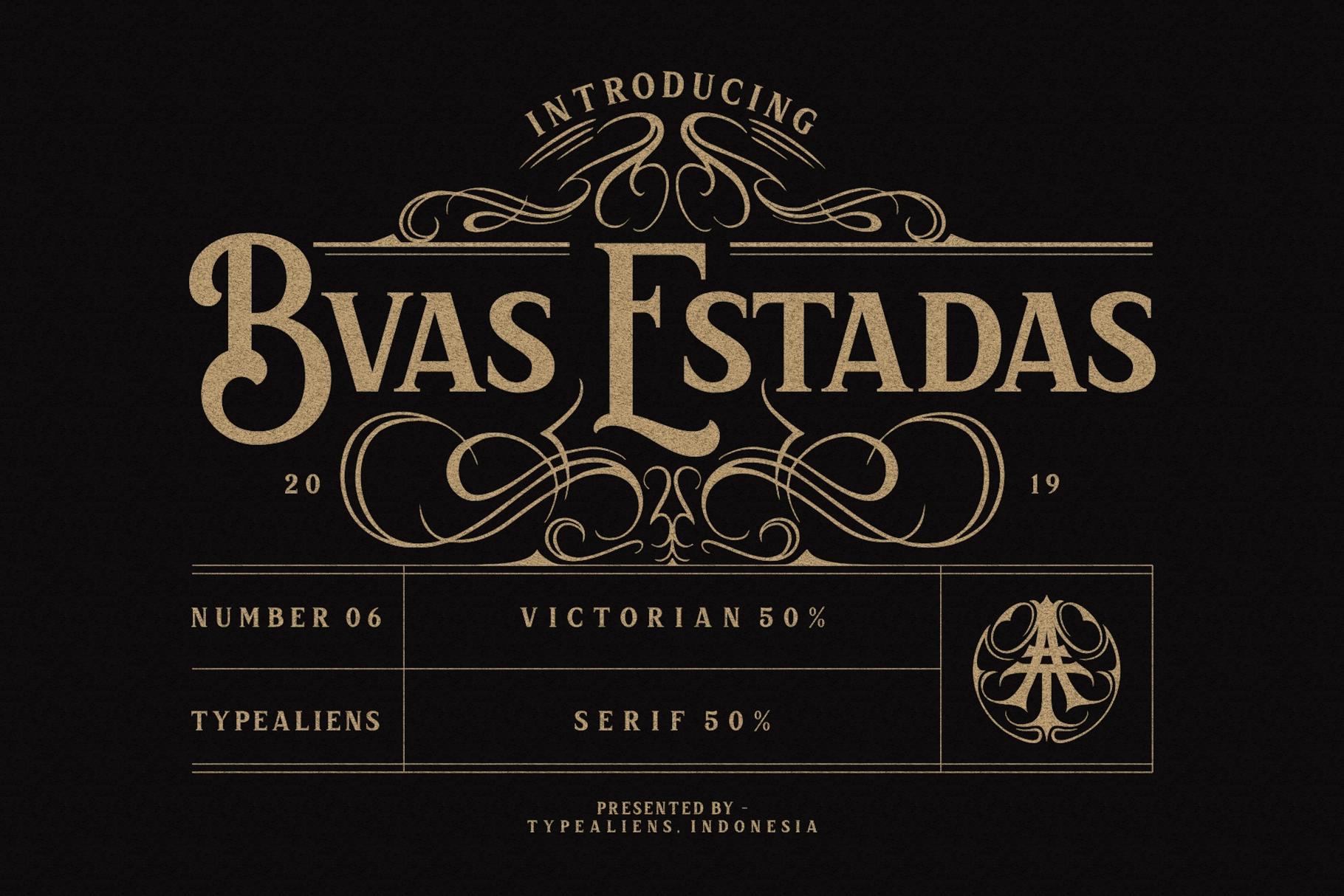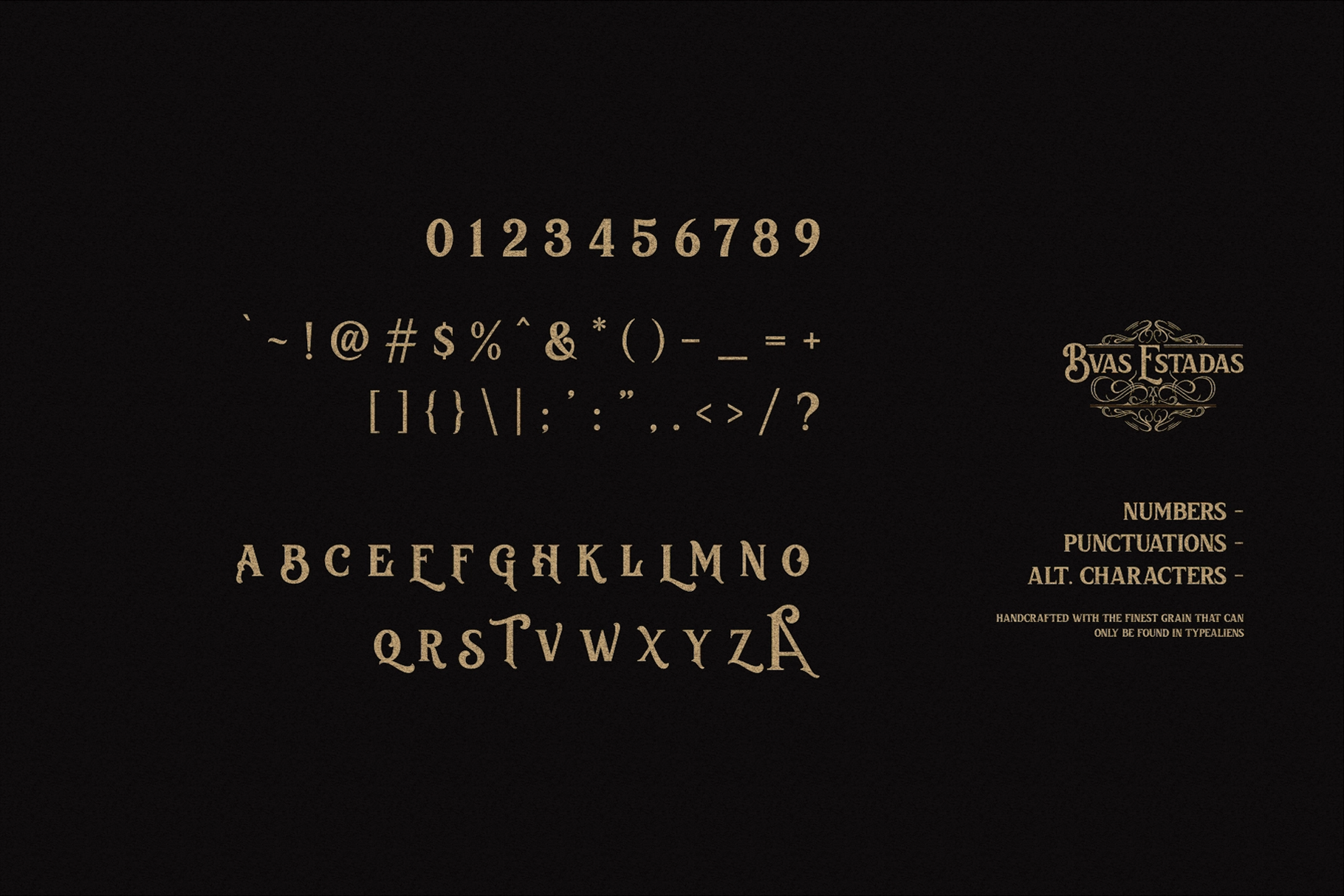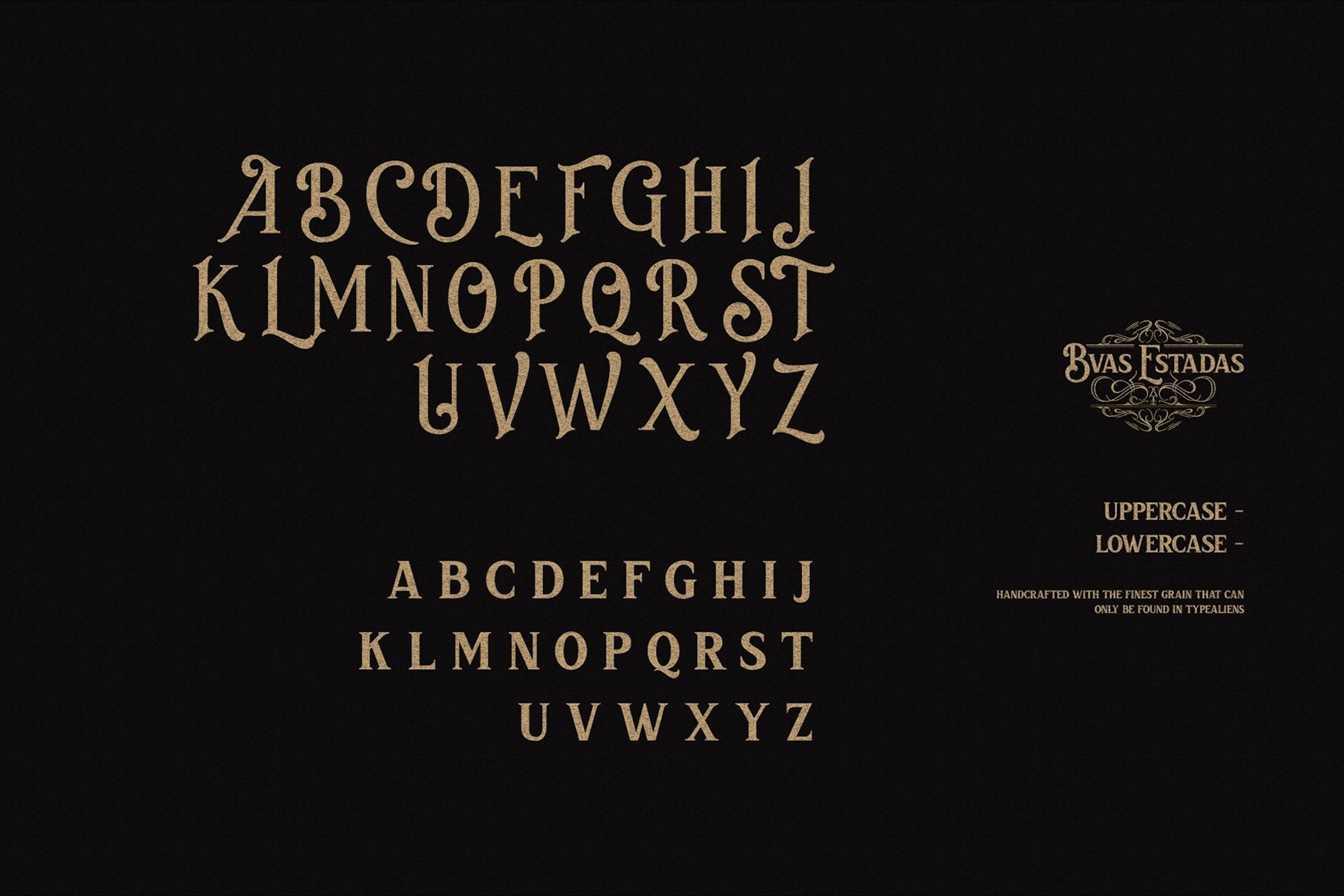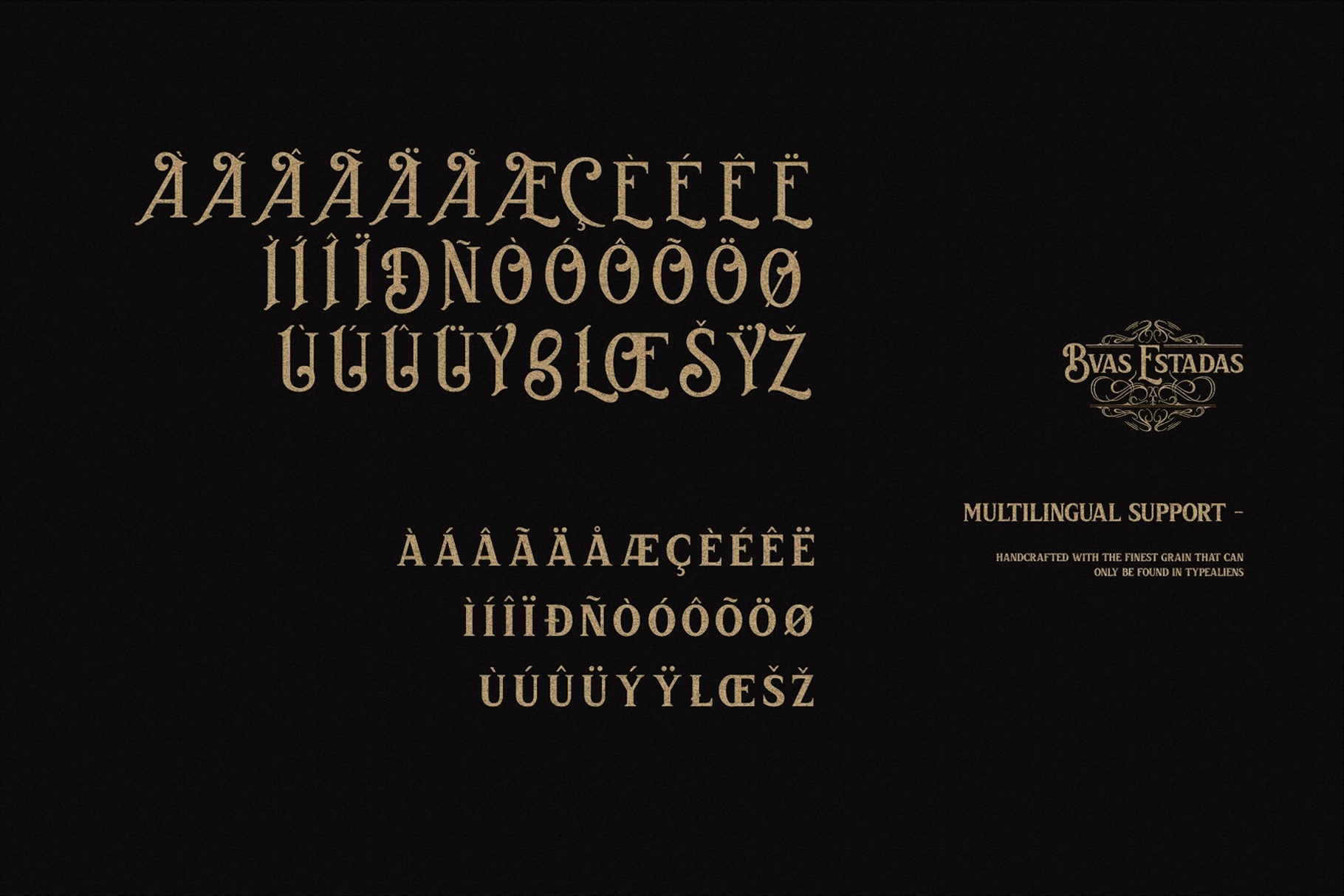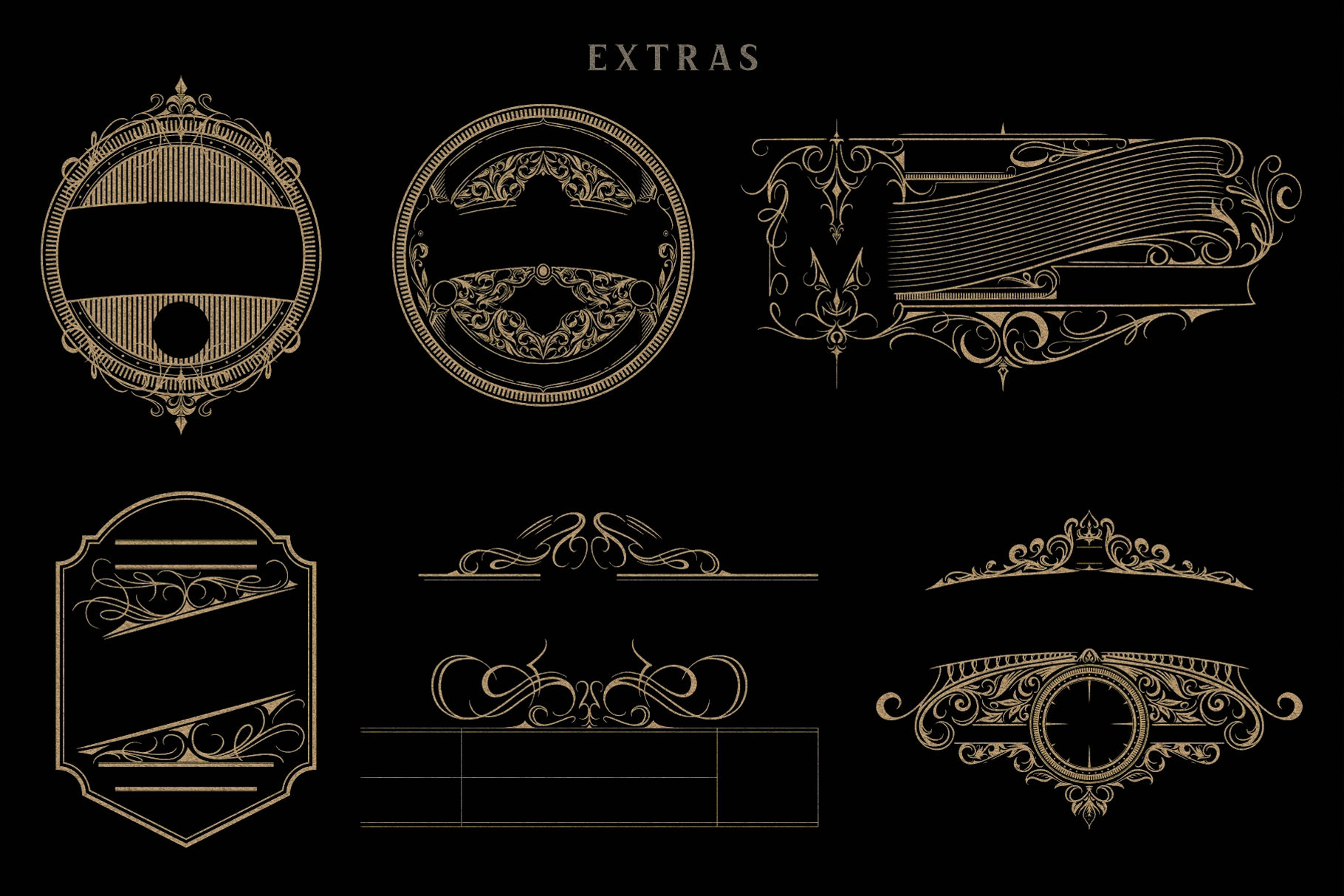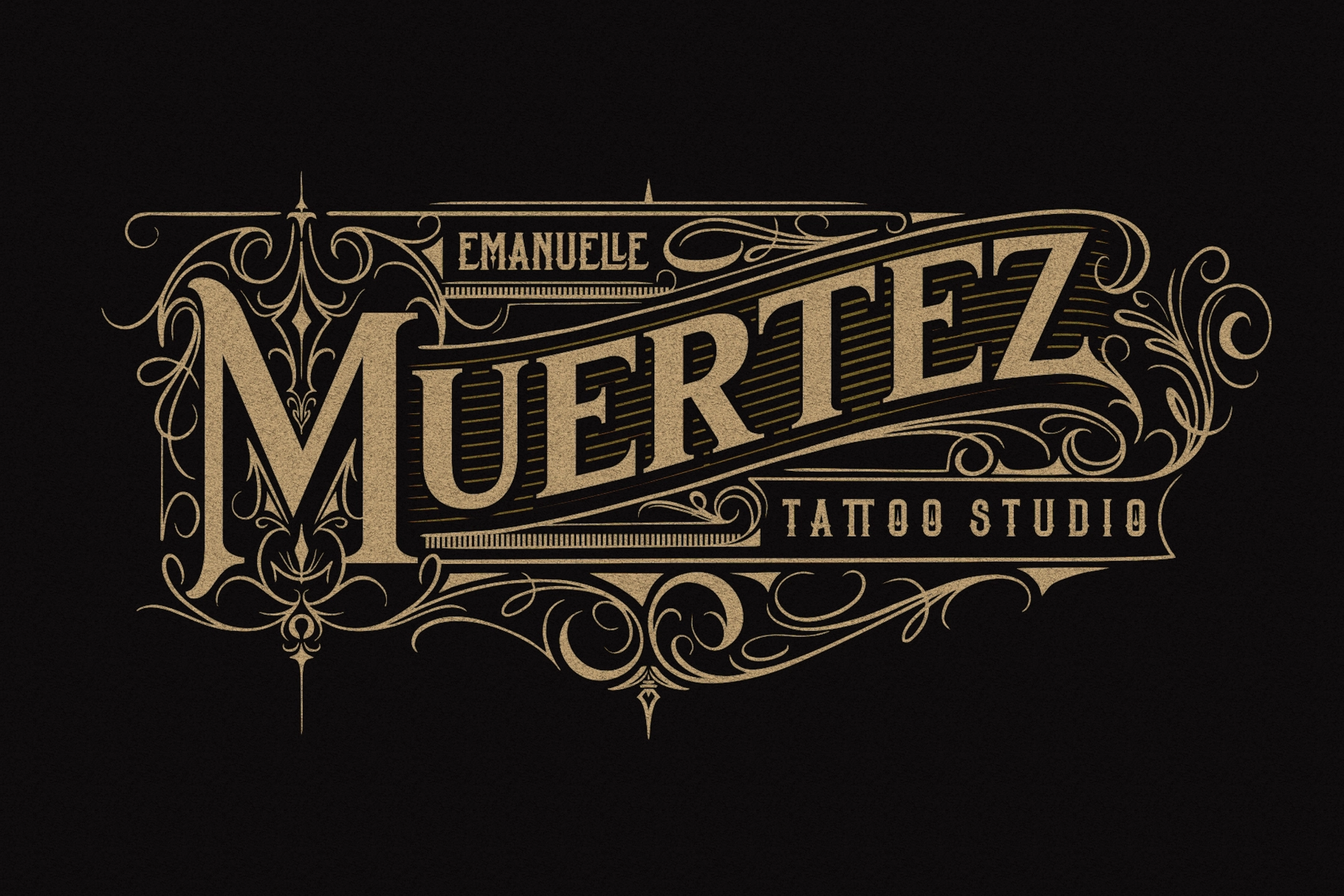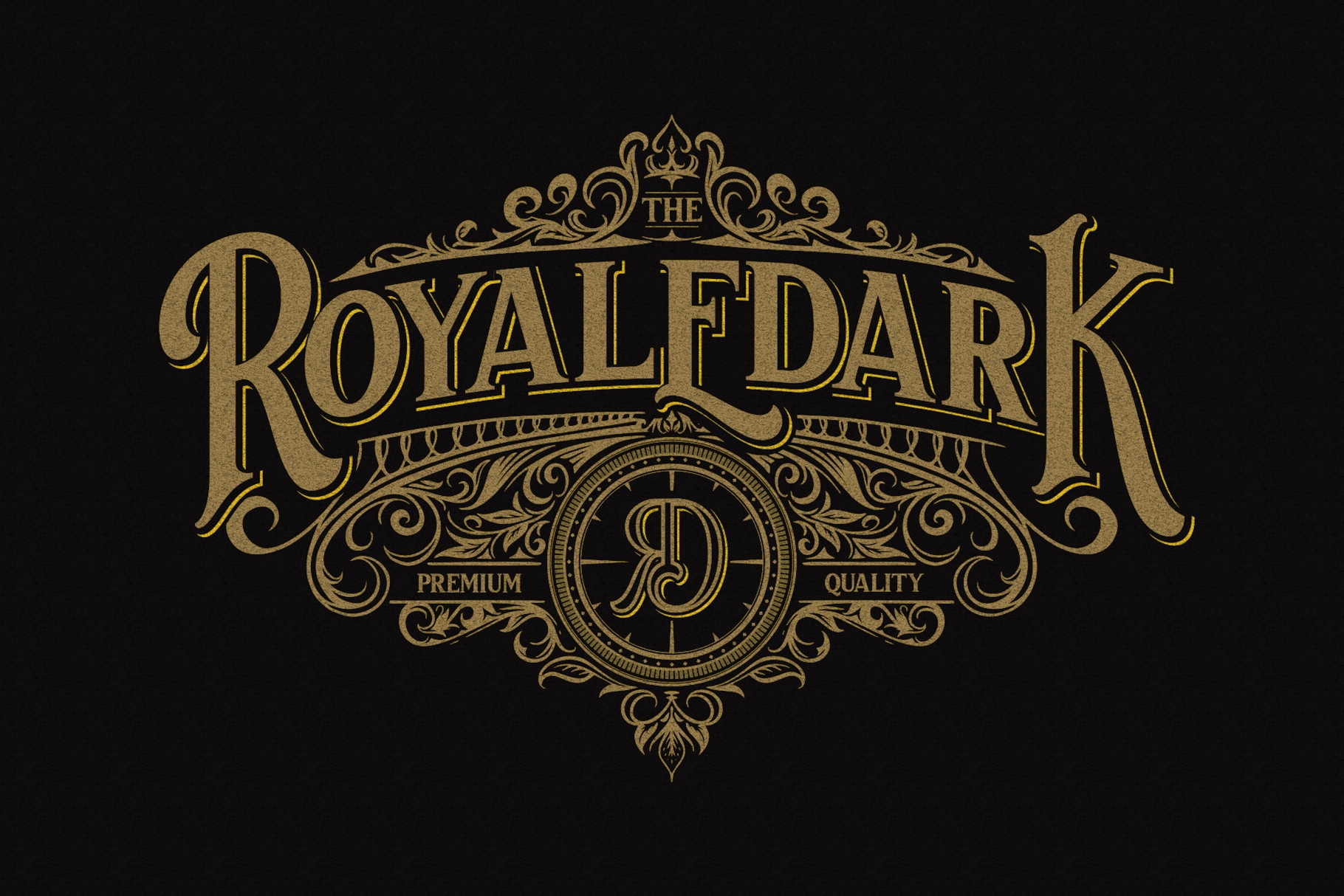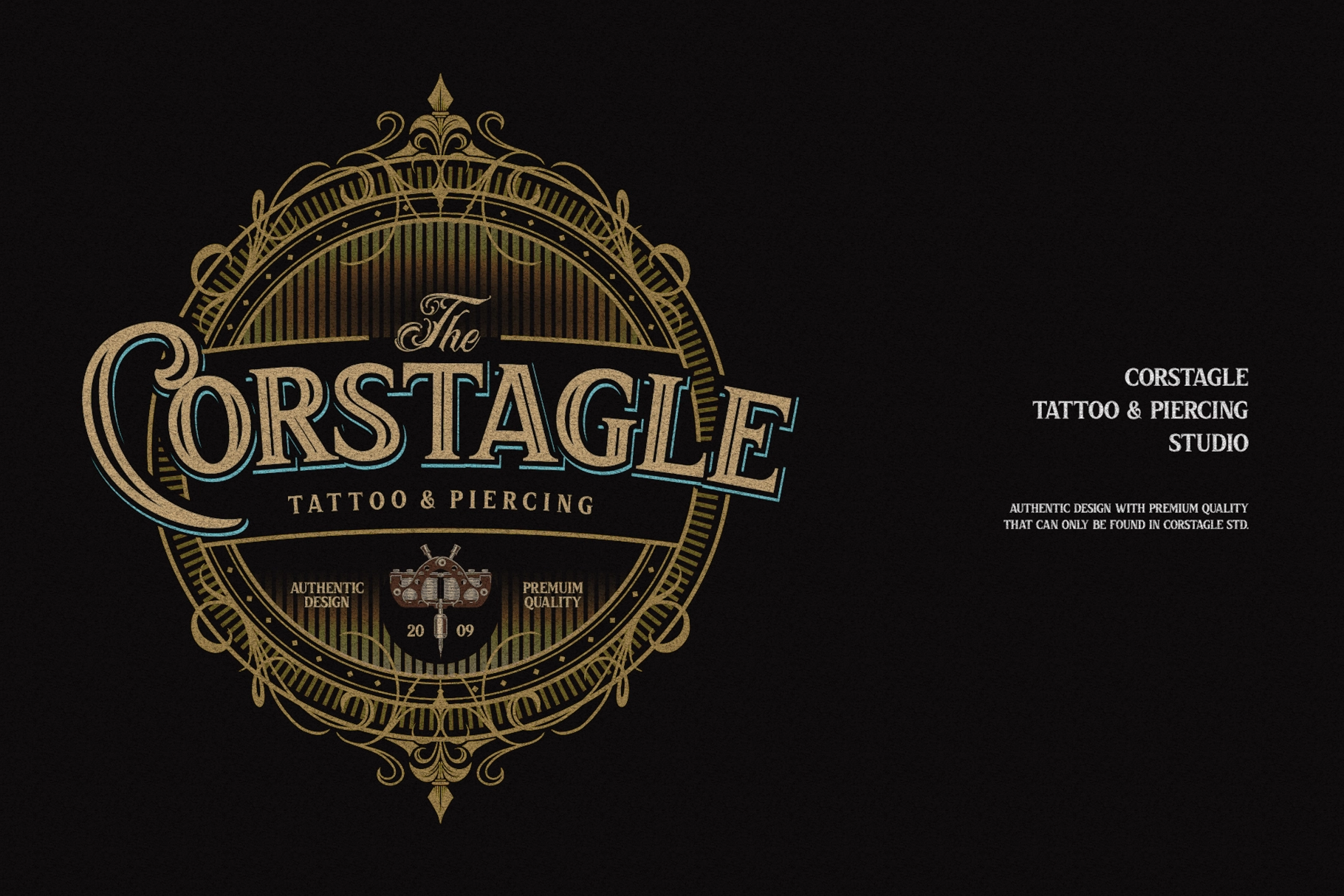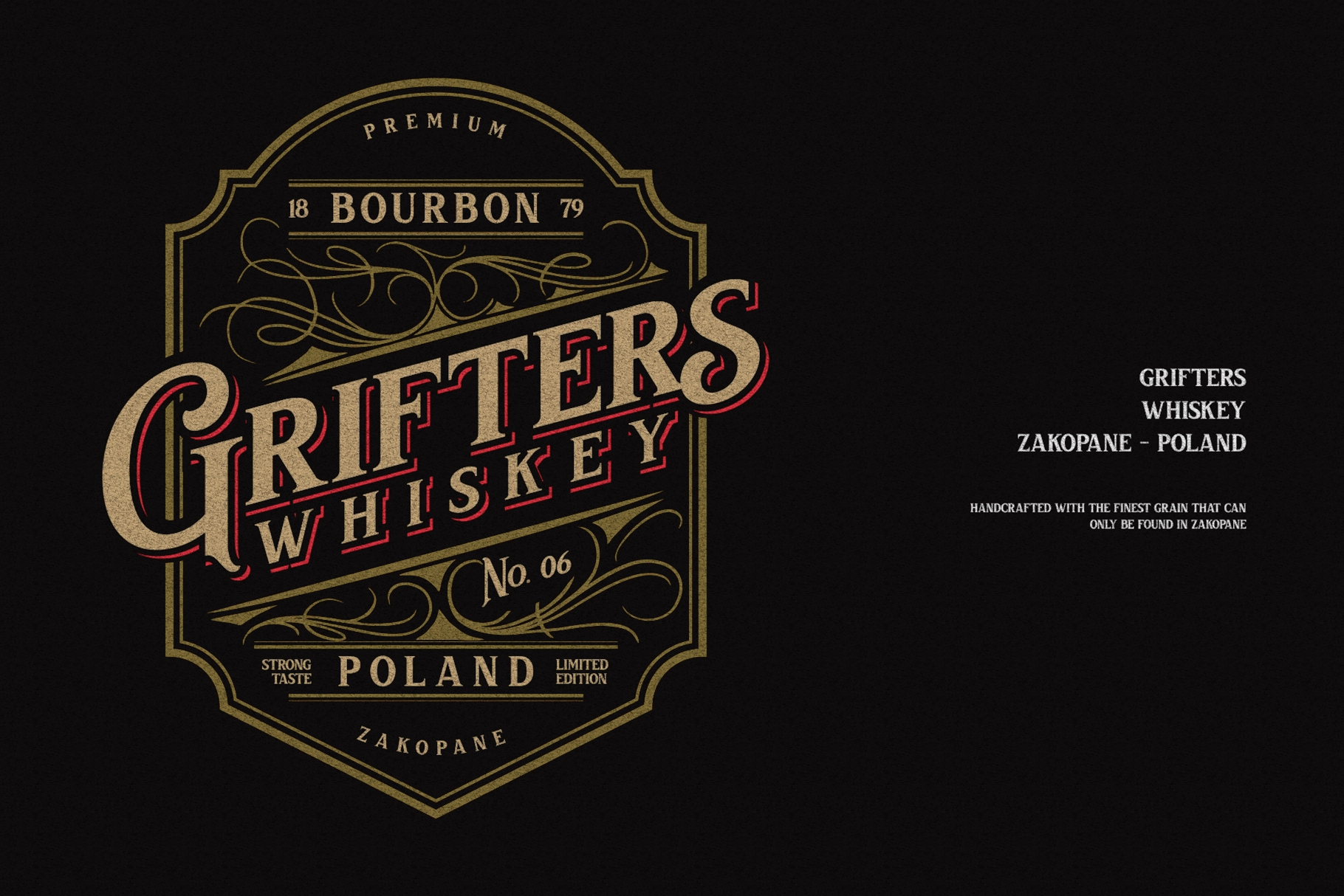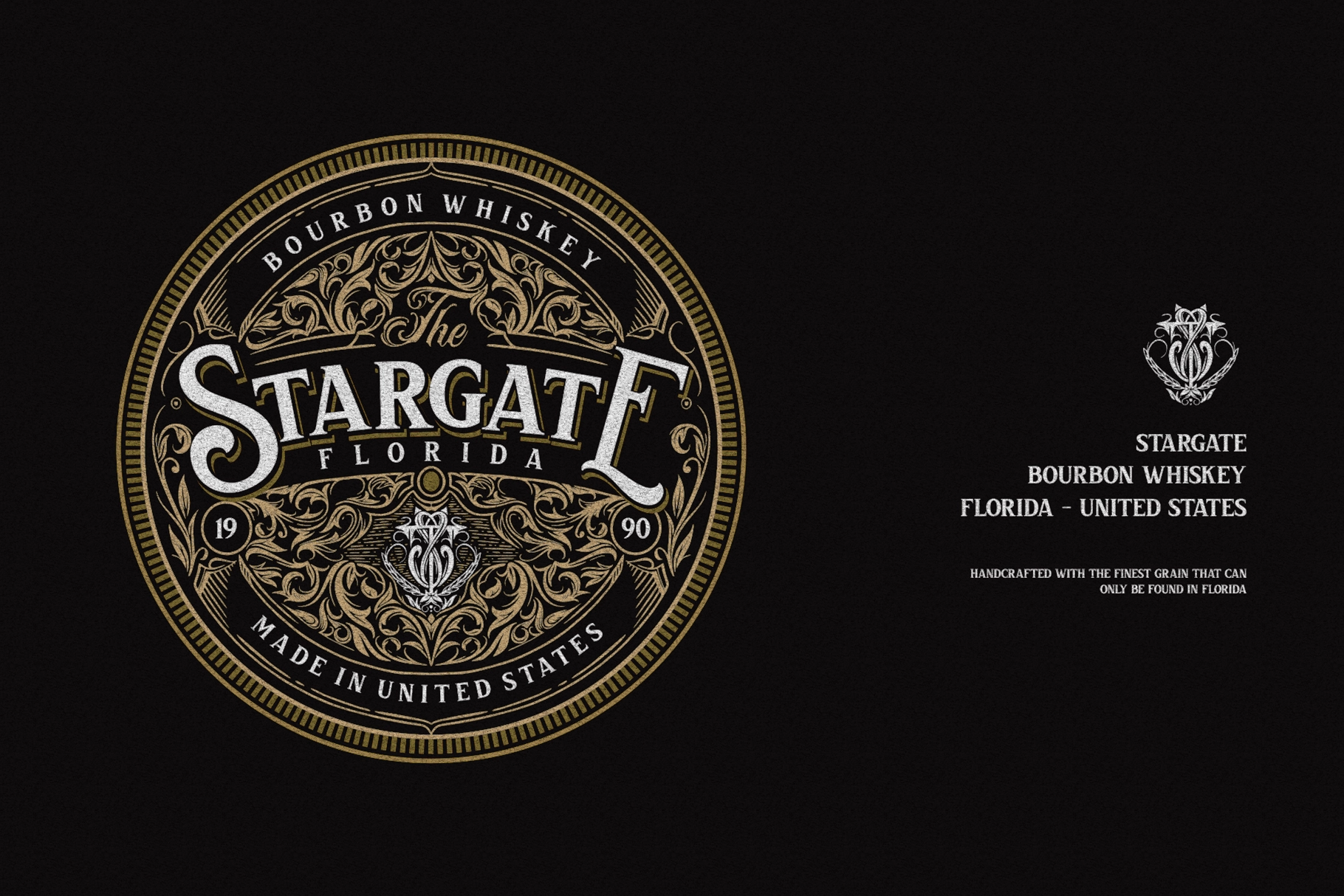
Bvas Estadas - Vintage Victorian Serif Font
This vintage serif font has ornate capitals, textured strokes, and a formal old-world character made for grand labels and heritage branding. Its decorative uppercase letters bring Victorian-era drama, while the smaller serif forms keep titles structured, polished, and readable.
Bvas works well for liquor labels, tattoo studio logos, boutique packaging, cigar bands, antique shop branding, restaurant identities, book covers, certificate designs, wedding stationery, hotel marks, editorial titles, product seals, monograms, and more. The included extras add ornamental frames, flourishes, dividers, and label elements, giving designers a ready-made toolkit for that “found in a velvet-lined drawer” kind of luxury.
• Alternative Characters
• Decorative extras
• Victorian serif character